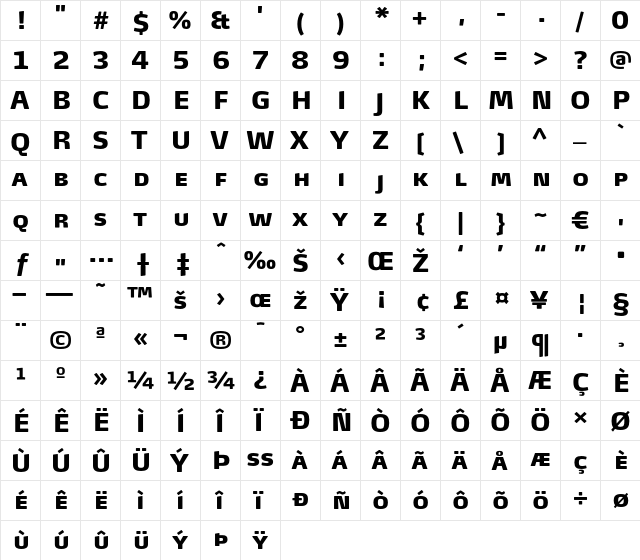
MaxTF-BlackSC Regular
Design Context for MaxTF-BlackSC Typeface
MaxTF-BlackSC is a composed and adaptable typeface that performs quietly and consistently across a wide range of design contexts.